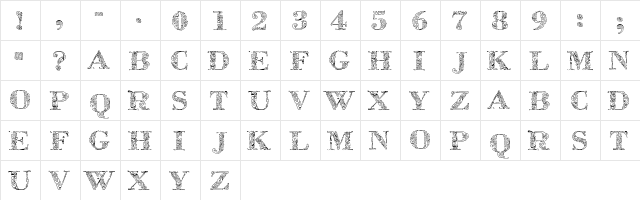
ZsylettPro Regular
Design Context for ZsylettPro Typeface
ZsylettPro is a composed and adaptable typeface that performs quietly and consistently across a wide range of design contexts.